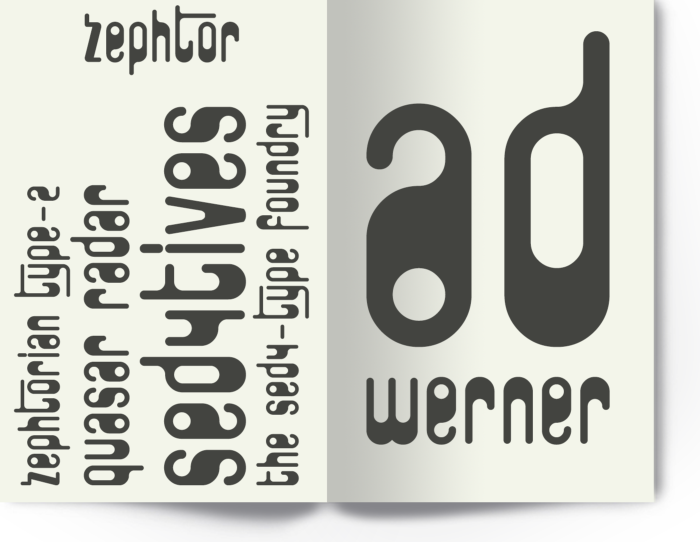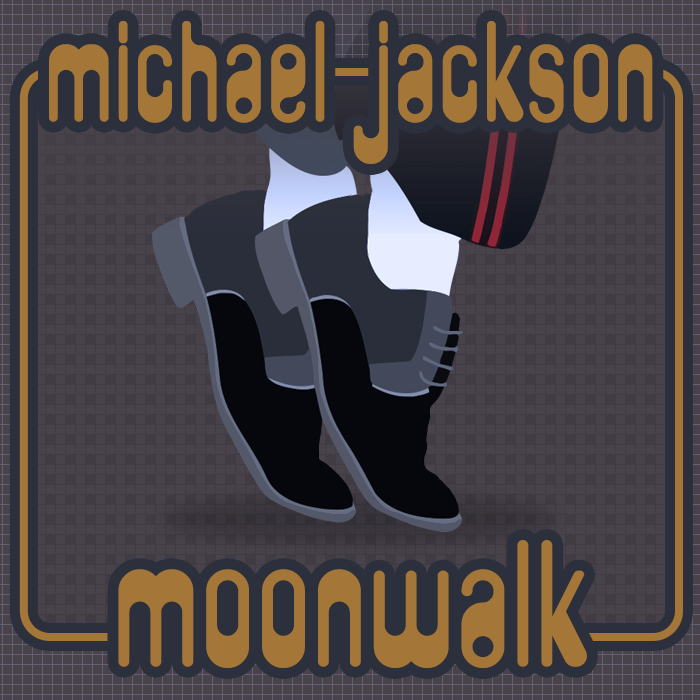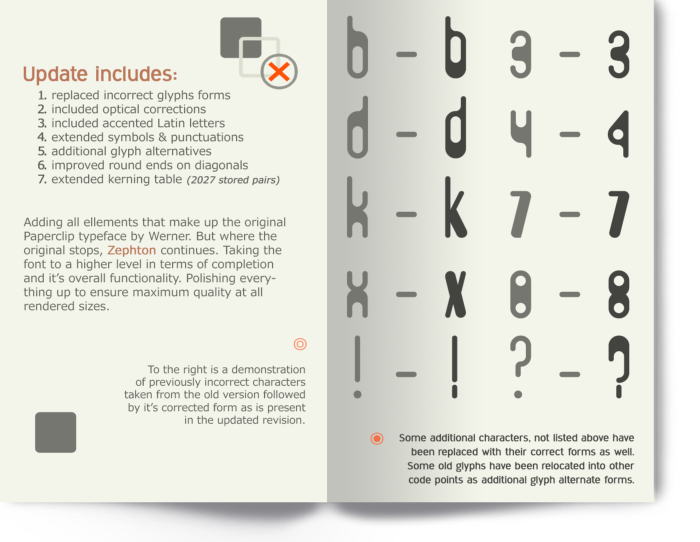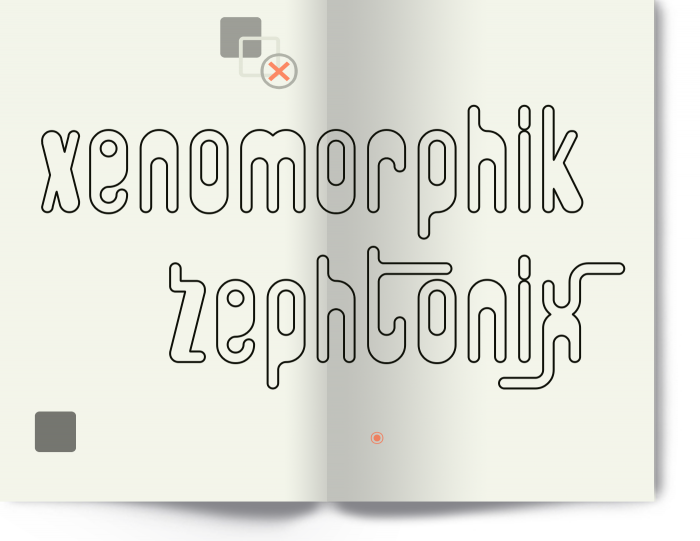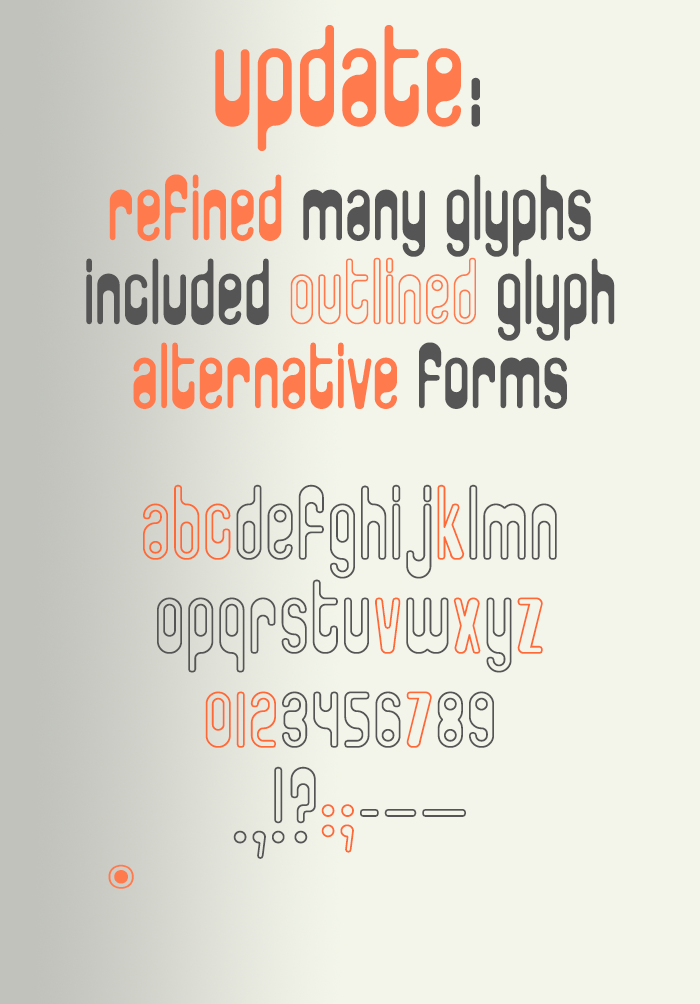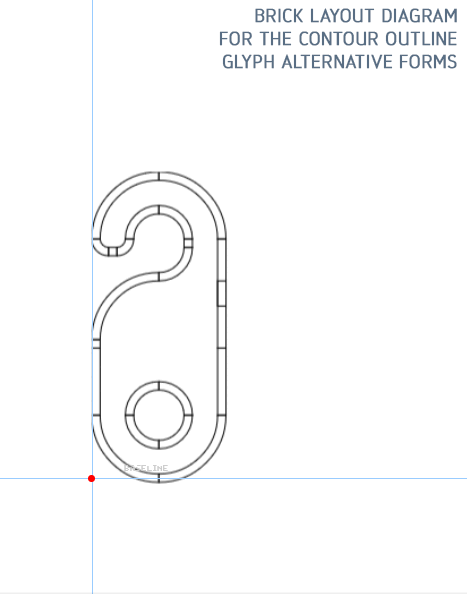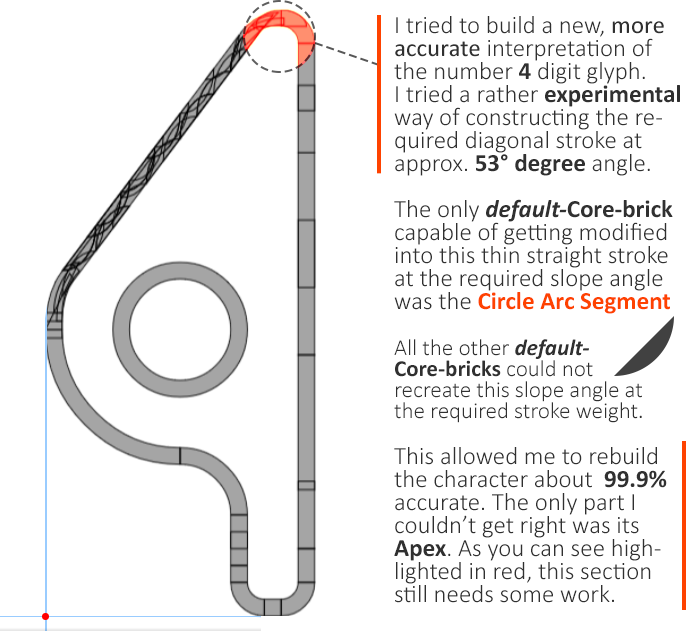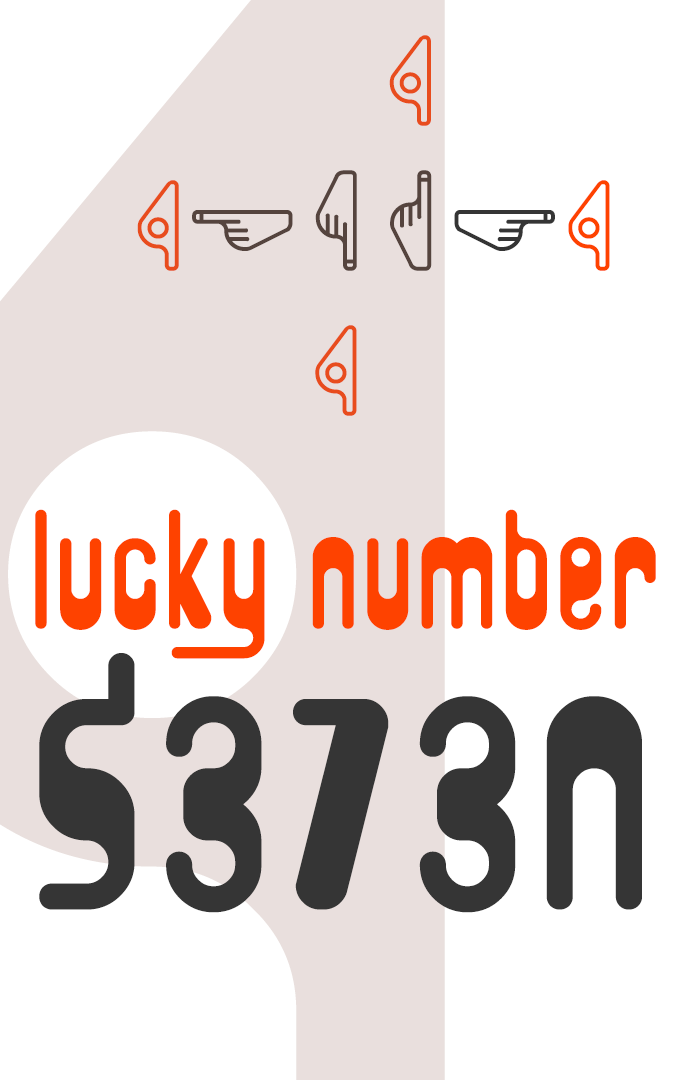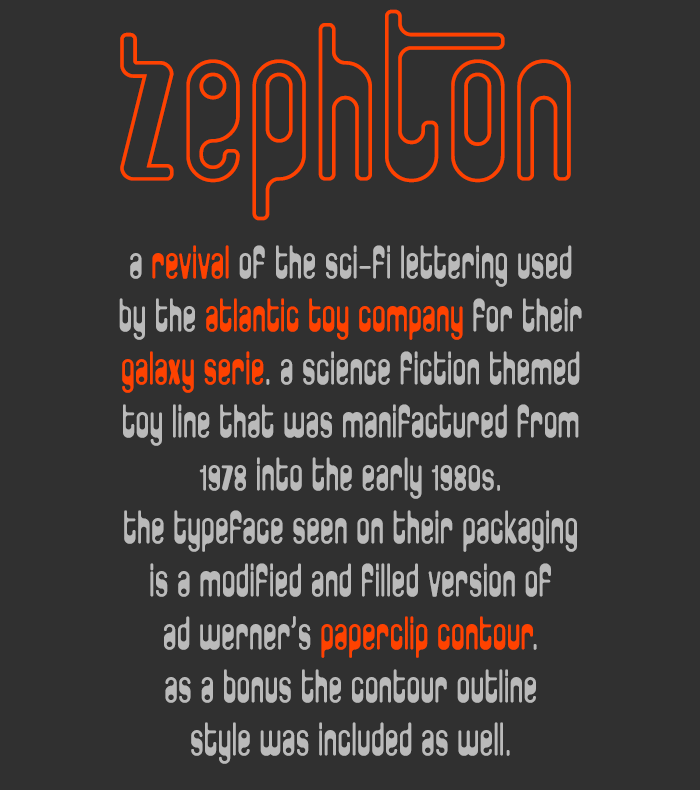
• ZEPHTON (Pro) — 70's future retro / sci-fi style typeface
[ INTRODUCTION ]
A revival of the Sci-Fi lettering used by the “Atlantic Toy Company” for their “Galaxy Serie”. A science fiction themed toy line that was manifactured from 1978 to the early 1980s.
The lettering seen on their packeging uses a modified and filled version of a typeface called Paperclip Contour, which was designed by Dutch graphic designer Ad Werner, and was issued by Mecanorma in 1973. There is very little information provided on the web in regard to the original typeface by Werner. And even fewer images. Nothing that show a complete character set, only FontInUse submissions. But taken from the research I conducted I can safely conclude that the original Paperclip Contour typeface has just one style, which is outlined, and that it includes a lower case (a-z)  letterset with numerals and just a had full of symbols and punctuation.
That being said, this actually is the second revision I did for the lettering. The innitial first version had a super basic character set, as well as a couple of mistakes included alongside some compromises in respect to certain glyphs. This was due to the limited knowledge I had in regard to the use of the FS-editor at that time. So the font wasn't 100% accurate. This newer version correct most of the inconsistencies that were present in the older version.
Due to the incomplete resource material on the original Paperclip Contour by Werner I can't check accuracy of this newer version. But I think that apart from the thicker weight in Zephton its 99% accurate.
Where the older version ran short by a lot, this new revision in fact can qualify as a full font, with everything from numerals, symbols, puntuation marks as well as accented letters for more Latin languages. And ever some glyph alternatives. Making this much more of a functional font.
[ THE FONTSTRUCTION ]
The font is a “Unicase” style typeface that has only “Minuscules” included. There are glyph alternate forms for several letters as well as a secondary set of numeral figures. These characters are located in the Unicode blocks for “Halfwidth And Fullwidth Forms” and “Private Use Area 1”
There is also a full  (a-z, 0-9)  alphanumeric set with “Contour Outlined” glyph alternative forms, which is located in the “Private Use Area 2”
The font saw a major update that tied everything together, and sort of finalizes the font for proper use.
Several characters have received minor adjustments in order to find a balanced harmonic distribution of typeset material. Also several improvements have been made to the overall shape and form of various characters. In addition to that numerous new characters been designed, expanding the character set even further.
Work also continued in the metric department, building the kerning table, that contains 2368 stored kerning pairs so far. Spacing was reduced by 50% to tighten the letter fit significantly. To round things up and convert it into a more functional typeface some of the characters were rearranged and/or relocated to different Unicode blocks.
[ CONTOUR OUTLINED GLYPH ALTERNATIVE FORMS ]
The contour outline glyph alternative forms are not 100% accurate conversions of their solid counterparts. This due to minor design difficulties that simply made it impossible to fully execute it at its current size and with this thin stroke weight. The deformities are simply the result of a lack in fully smoothened stroke contours in some of the transitions from diagonal to curved parts. These flaws are minute, and mostly only noticable at large size rendering, but nonetheless present. In small to medium size text these imperfections are  hardly visible, and pose no real problem. Anyway.. the contour outlined glyphs are still very close approximations nonetheless, just so that it happens to be with a small number of tiny imperfections.
As a direct result of this the two sets with glyphs do not fully match and therefor not seemlessly overlap.
This can be ignored for most part in the majority of the font's application, but it does create two important limitations:
1) Contour outlined glyphs are unsuitable for vector path outline rendering when the stroke alignment is set to "Outside" (Configured like that with threshold for the corner point angle set to sharp these imperfections in the glyph contours can generate spikey disruptions to appear in the stroke rendering).
— So this configuration should be avoided.
2) The two styles are unsuitable (or incompatible) with stacked “multi-layer" overlay text compositions.
— Simply due to the fact the two variations aren't a 100% true match.
They do on the other hand, combine perfectly side-by-side in text composition.